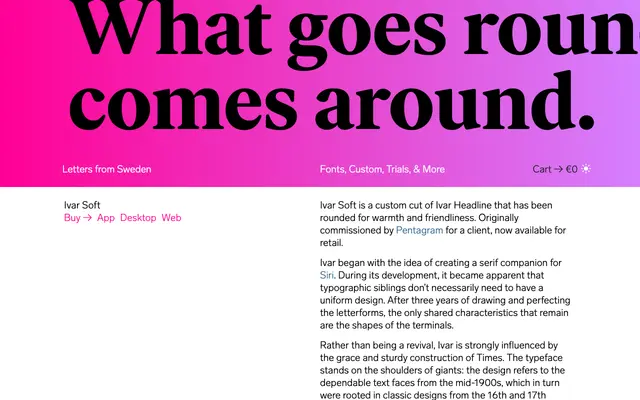
Ivar Soft
A rounded cut of Ivar Headline, originally commissioned by Pentagram, softening the transitional serif construction with rounded terminals for a friendlier tone.
Ivar Soft takes the forms of Ivar Headline and rounds the terminals, lending the transitional serif warmth without sacrificing its structural rigour. The family was designed by Göran Söderström with Greek characters by Panos Haratzopoulos, and covers Latin and Greek scripts across four weights with matching italics. Originally a bespoke commission from Pentagram, the cut is now available for retail alongside the broader Ivar family, which spans Text, Headline, Display and Fine optical sizes.
Ivar is explicitly influenced by Times and mid-20th century text faces rooted in 16th–17th century classics, placing it firmly in the transitional serif tradition. The Soft cut adds rounded terminals for warmth while retaining the underlying construction.